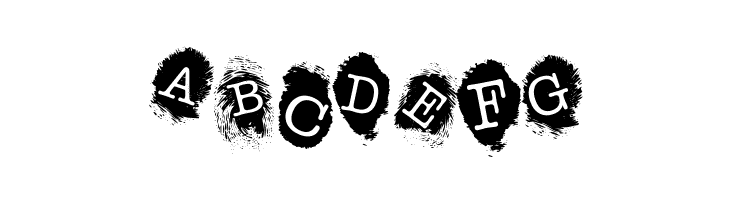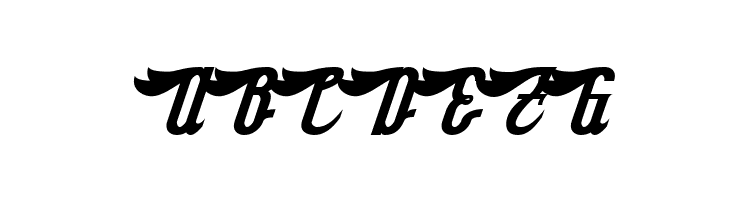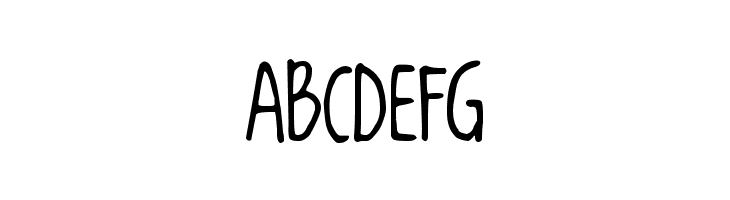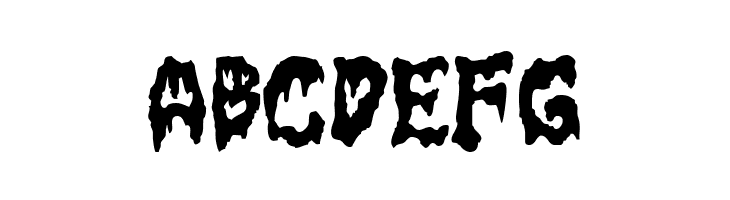
Fingerprints Inside Font
A bold, decorative font with characters encased in fingerprint-like smudges.
GoreFont II Font
A decorative font with jagged, dripping edges, ideal for horror-themed designs.
ICBM SS-25 Font
Font by www.vicfieger.com
A bold, distressed font with a rugged, weathered appearance.
king cooL KC Font
Font by Kimberly Geswein - kimberlygeswein.com
Michaelmas Font
A dynamic and flowing script font with elegant curves and whimsical flourishes.
Middle Earth NF Font
Font by Nick Curtis - www.nicksfonts.com
A bold, outlined font with a fantasy-inspired, geometric style.
Sloe Gin Rickey Font
A bold, cursive font with elegant, flowing lines and vintage charm.
SpookShow Undead Font
A spooky, jagged font with a hand-drawn, eerie style.